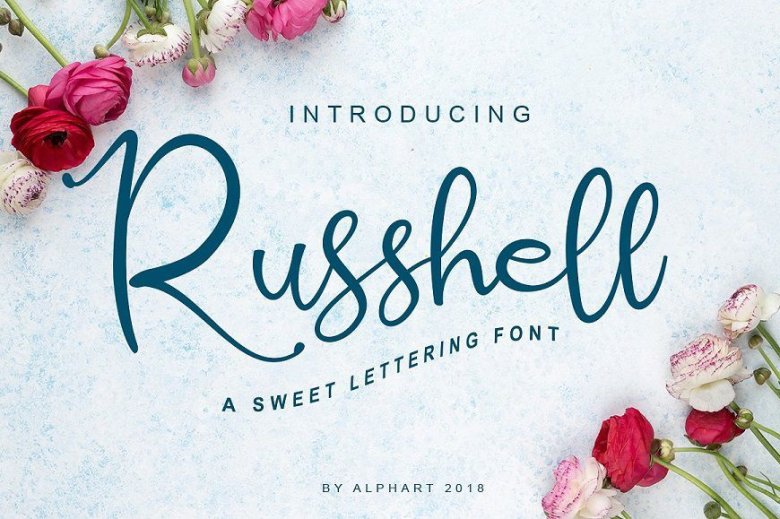
Russhell Font
Russhell a sweet lettering font – a new modern & fresh script with a handwritten and script style make this font looks cute, elegant, stylish and perfect for any awesome projects that need lettering taste.